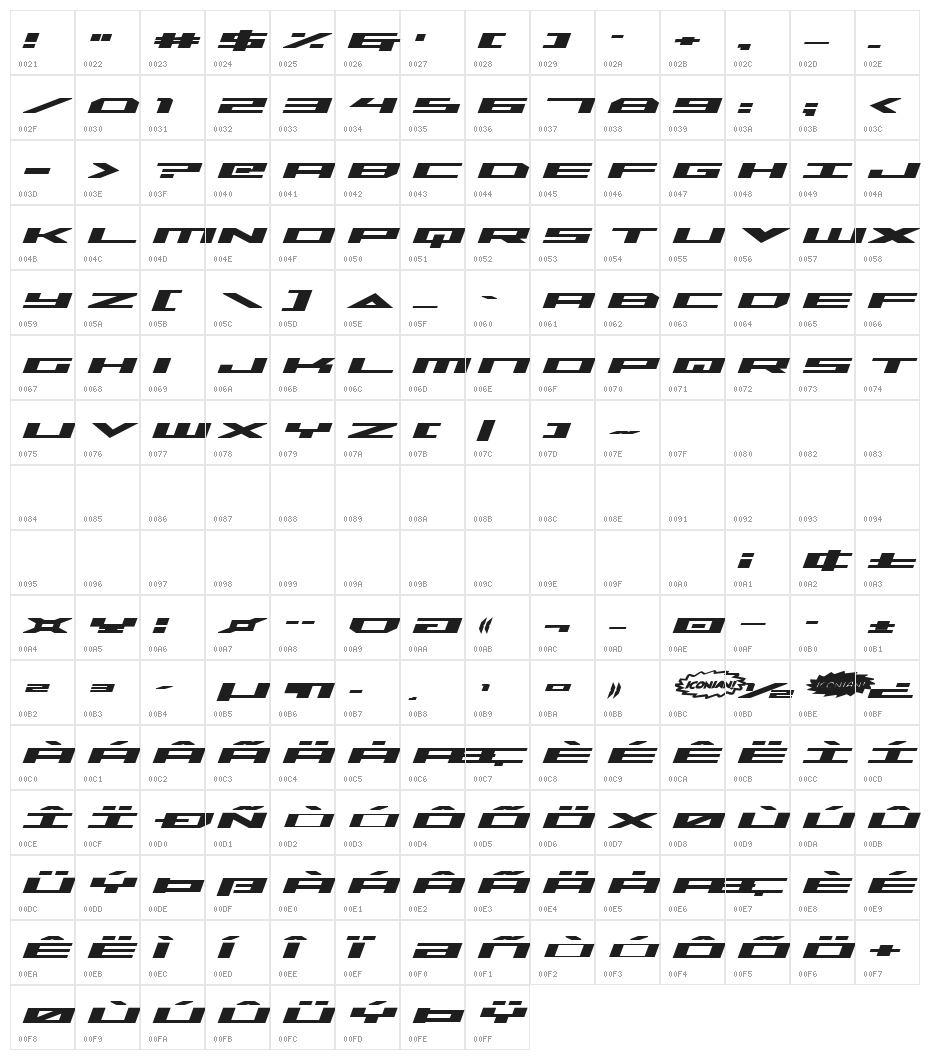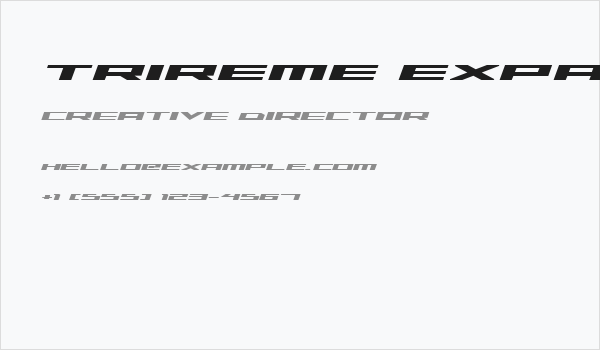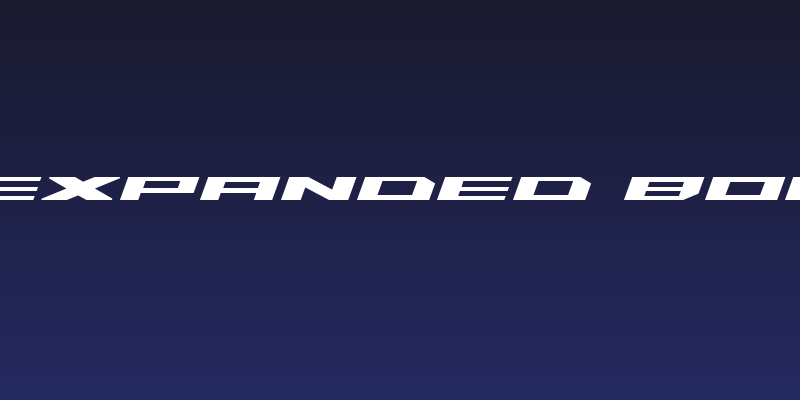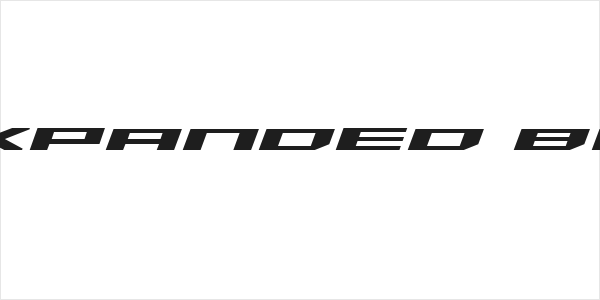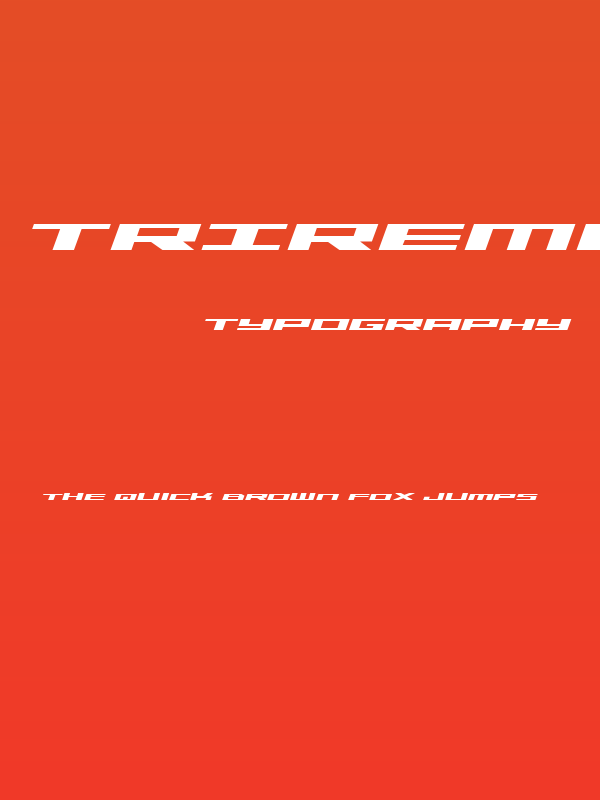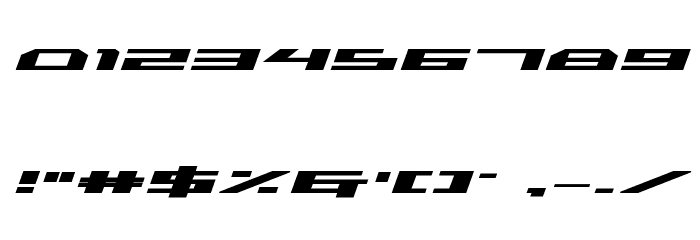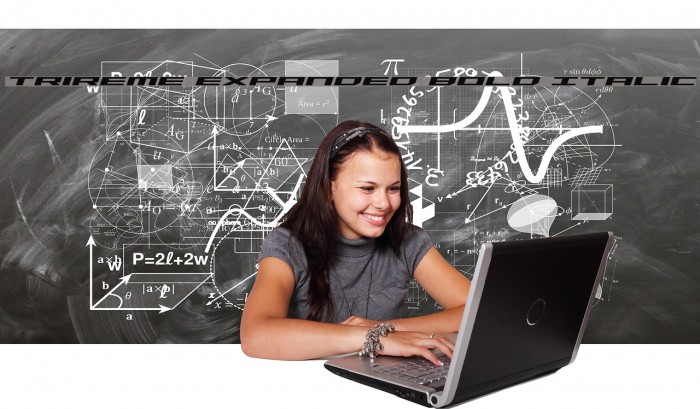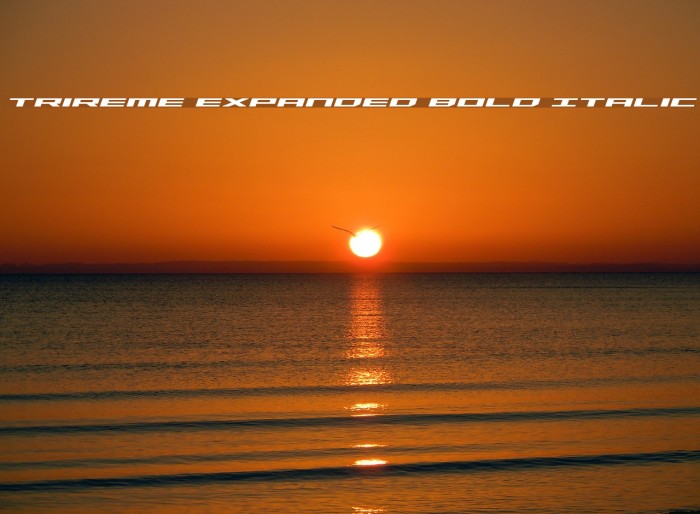
Trireme Expanded Bold Italic Font
Trireme Expanded Bold Italic Description
This font features a bold and italicized style with an expanded width, giving it a dynamic and futuristic appearance. The characters are sharply angled, with a geometric design that emphasizes speed and movement. The uppercase and lowercase letters maintain a consistent style, with the lowercase slightly smaller but equally bold. Numbers and special characters follow the same design principles, ensuring uniformity across all glyphs. The font's expanded width allows for a strong presence, making it suitable for impactful designs.
| Proposed Projects | Ideal for sci-fi themed projects, video game titles, technology branding, and dynamic posters. |